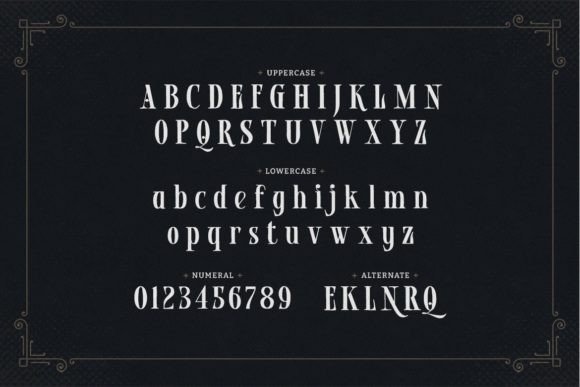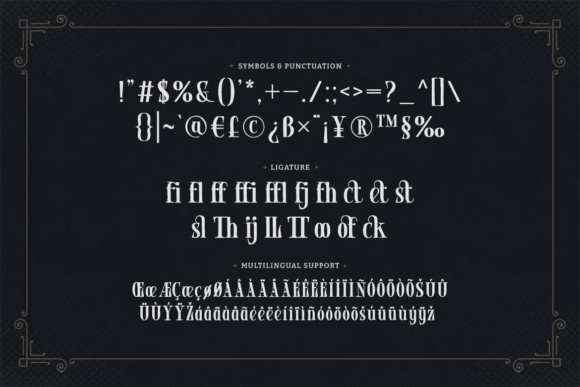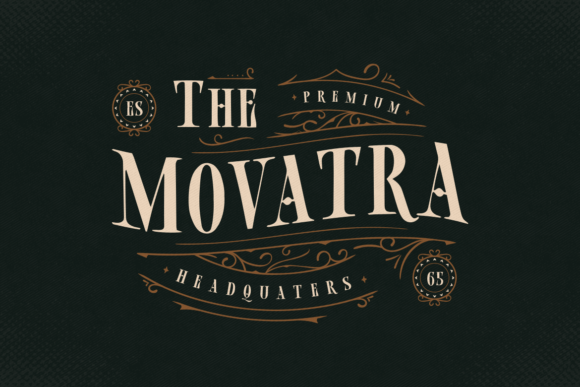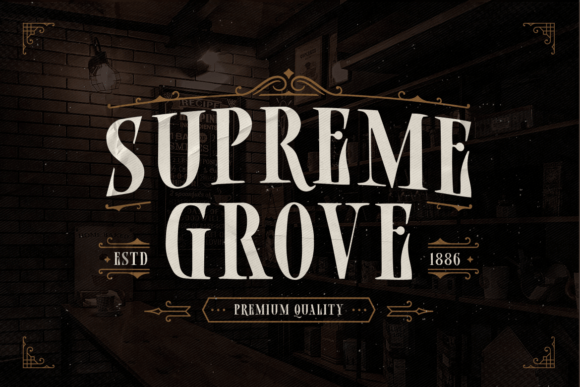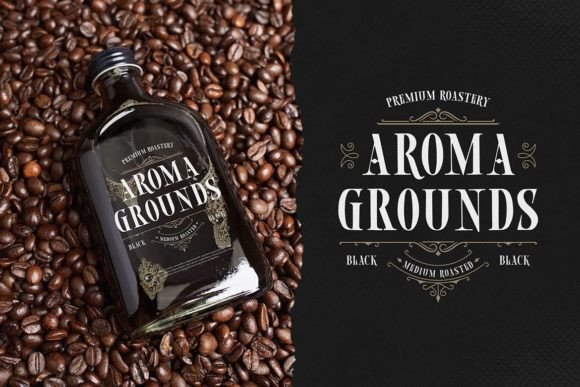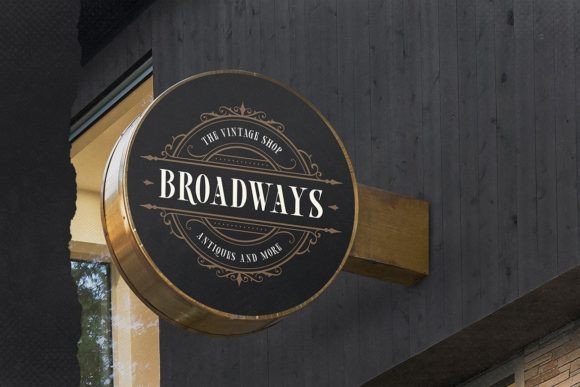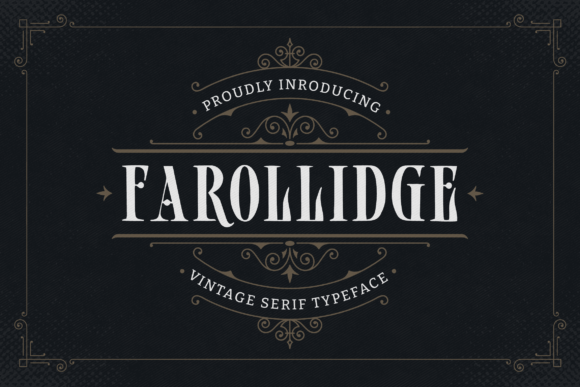
Discover the Charm of Farollidge Font: A Retro and Unique Addition to Your Design Projects
Are you on the hunt for a font that injects a dose of happiness into your design projects? Look no further than the Farollidge font, a delightful blend of retro charm, cuteness, elegance, and vintage flair. This distinctive font is sure to breathe life and energy into any project, making it a perfect choice for designers and crafters seeking to add a touch of whimsy and sophistication.
The Unique Characteristics of Farollidge Font
Farollidge font stands out from the crowd with its unique combination of classic and vintage elements. Its retro charm is instantly recognizable, evoking memories of a bygone era while still feeling fresh and modern. The font’s cuteness and elegance make it an excellent choice for a wide range of design projects, from children’s products and branding to packaging and advertising.
One of the key features that sets Farollidge apart is its PUA (Private Use Area) encoding. This means that users can easily access a vast array of glyphs and ligatures, allowing for endless creative possibilities. Whether you’re looking to add a touch of personality to your text or create a truly unique design, Farollidge font provides the flexibility and versatility you need.
Advantages of Using Farollidge Font
So, what makes Farollidge font an attractive choice for designers and crafters? Here are just a few of the advantages of incorporating this delightful font into your projects:
- Retro charm: Farollidge font boasts a unique retro aesthetic that’s sure to capture attention and evoke a sense of nostalgia.
- Elegance and sophistication: Despite its playful nature, Farollidge font exudes elegance and sophistication, making it suitable for a wide range of design applications.
- PUA encoded: With PUA encoding, users can easily access a vast library of glyphs and ligatures, allowing for greater creative freedom.
- Versatility: Farollidge font can be used for everything from branding and packaging to advertising and digital design.
Using Farollidge Font in Your Design Projects
So, how can you incorporate Farollidge font into your design projects? The possibilities are endless! Here are a few ideas to get you started:
- Branding and logos: Use Farollidge font to create a unique and memorable brand identity that sets you apart from the competition.
- Packaging design: Add a touch of whimsy and charm to your product packaging with Farollidge font.
- Advertising and marketing: Use Farollidge font to create eye-catching ads and marketing materials that capture attention and drive engagement.
- Digital design: Incorporate Farollidge font into your digital designs, such as website headers, social media graphics, and email newsletters.
Tips for Getting the Most Out of Farollidge Font
To make the most of Farollidge font, here are a few tips to keep in mind:
- Experiment with glyphs and ligatures: Take advantage of Farollidge’s PUA encoding to explore the font’s vast library of glyphs and ligatures.
- Mix and match: Combine Farollidge font with other fonts and design elements to create a unique and visually appealing design.
- Play with color: Use Farollidge font in a variety of colors to add an extra touch of personality to your design.
In conclusion, Farollidge font is a unique and versatile addition to any design project. Its blend of retro charm, elegance, and vintage flair makes it an excellent choice for designers and crafters seeking to add a touch of whimsy and sophistication. With its PUA encoding and vast library of glyphs and ligatures, Farollidge font offers endless creative possibilities. So why not give it a try and see how it can bring happiness and energy to your next design project?